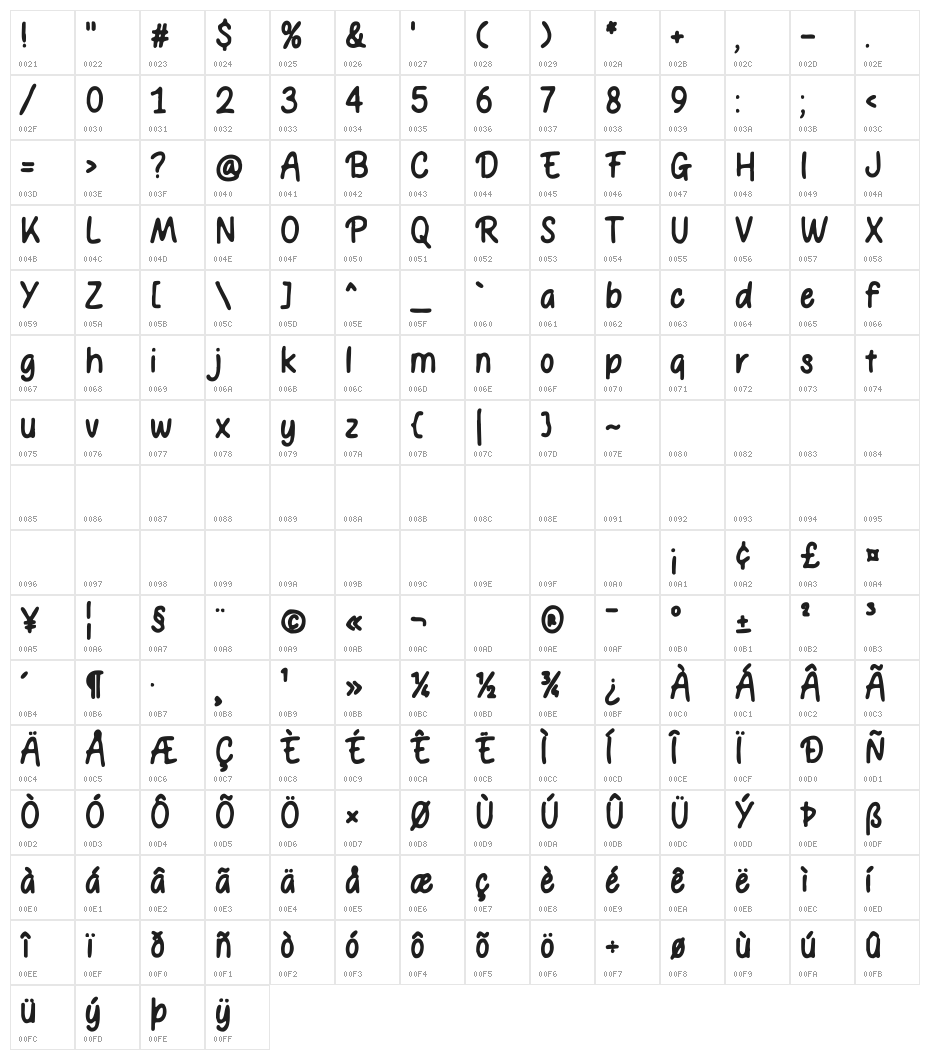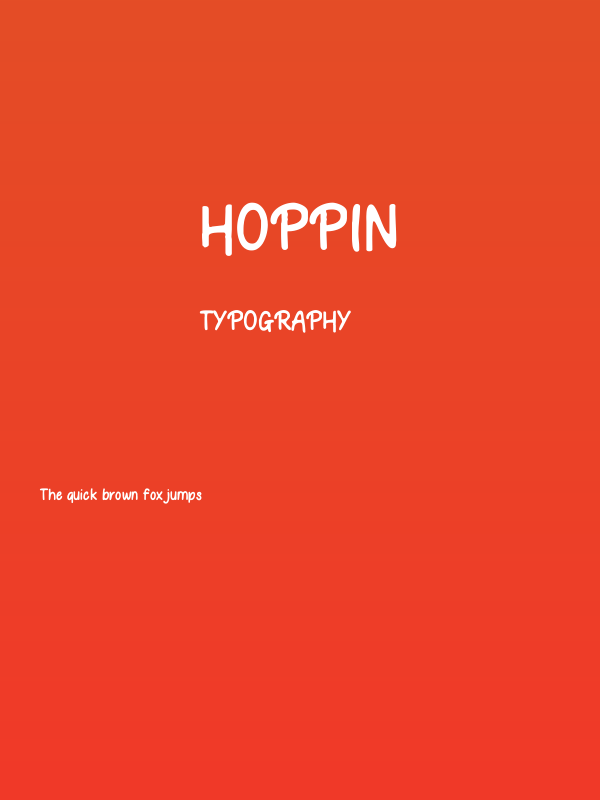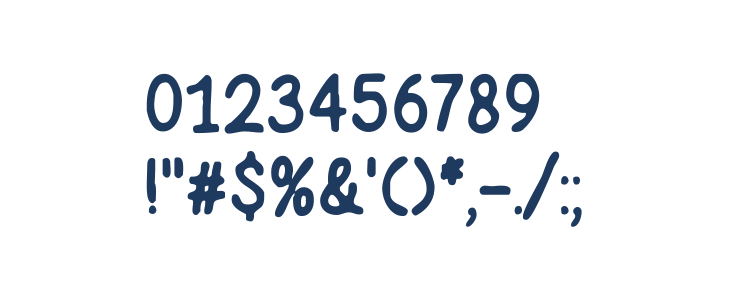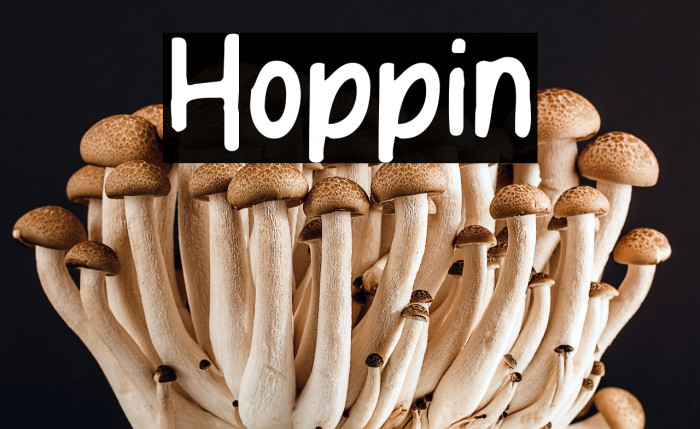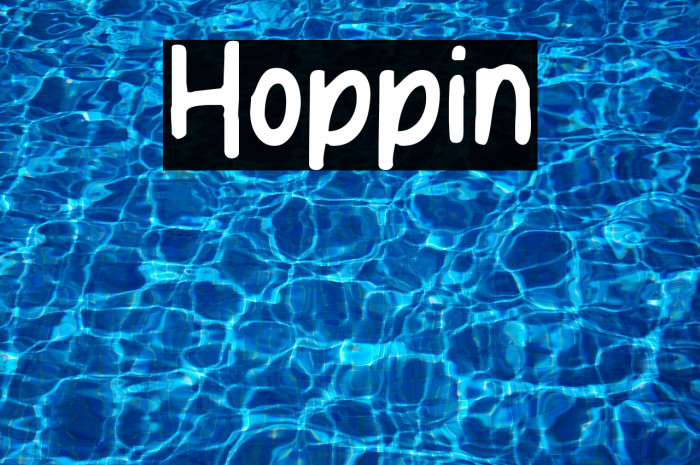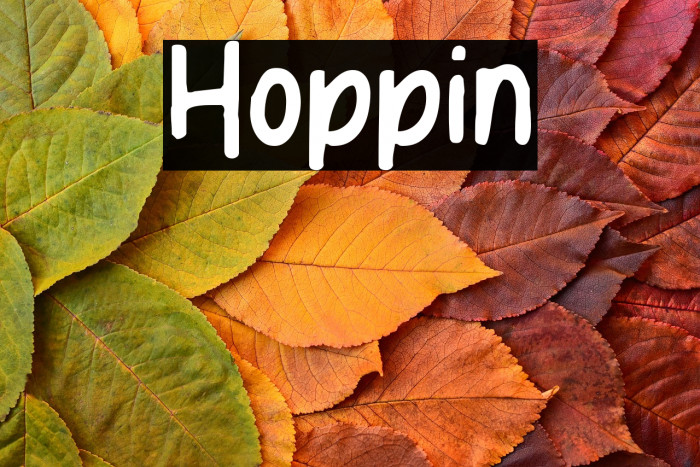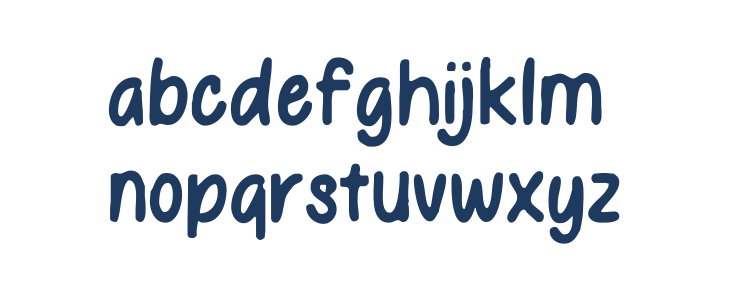
Hoppin Font
Hoppin Description
This playful and energetic font features a bold and rounded style with a hand-drawn appearance. The letters are slightly irregular, giving it a whimsical and informal feel. The strokes are thick and consistent, providing a strong visual impact. The font maintains a casual and friendly tone, making it suitable for projects that aim to convey a sense of fun and approachability. The characters are well-spaced, ensuring readability while maintaining its unique charm. This font is versatile and can be used in various creative applications, from children's books to playful branding.
| Proposed Projects | Ideal for children's books, playful branding, greeting cards, and informal invitations. |